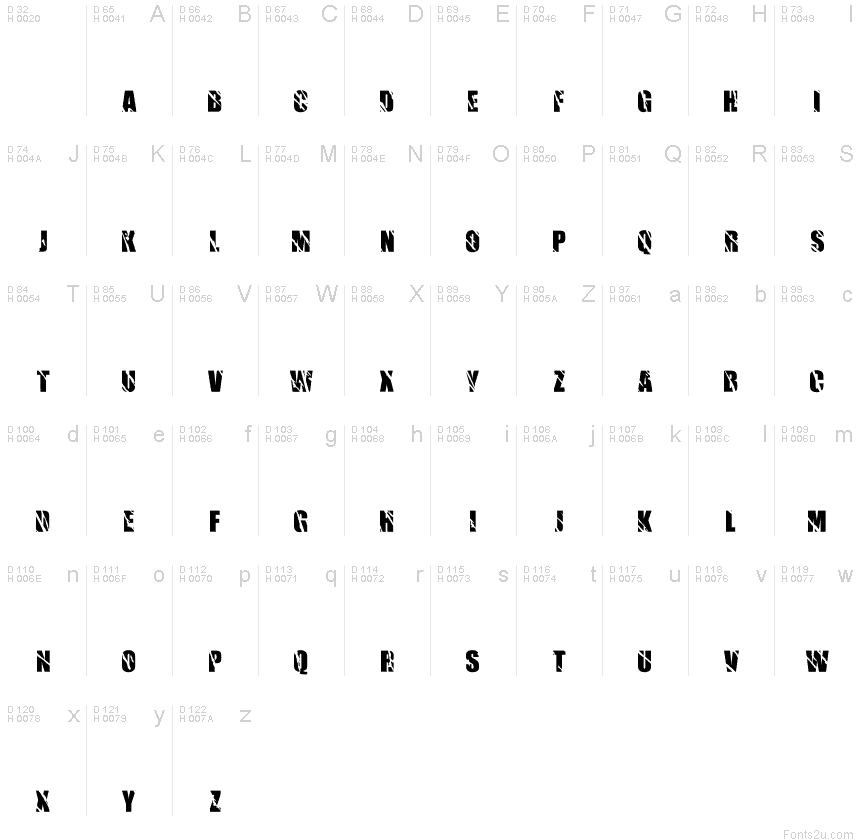
Insomnia
Insomnia font by Jens R. Ziehn is a free eroded display typeface that looks like it’s been split open by a sharp, white crack of light. Heavy black letterforms are slashed on the diagonal, leaving jagged gaps that feel tense and cinematic, like a horror title frozen mid-scream. The texture is rough and splintered, yet the shapes stay bold enough to read at a glance, even in a quick scroll or across a crowded poster.
Using Insomnia, you get instant thriller energy for movie posters, book covers, haunted house branding, Halloween flyers, game titles, and edgy album art. The broken strokes create movement and suspense, so you don’t need many extra effects-let this free font run large and tight, then pair it with a plain, narrow sans-serif for body copy to keep the drama controlled and legible.